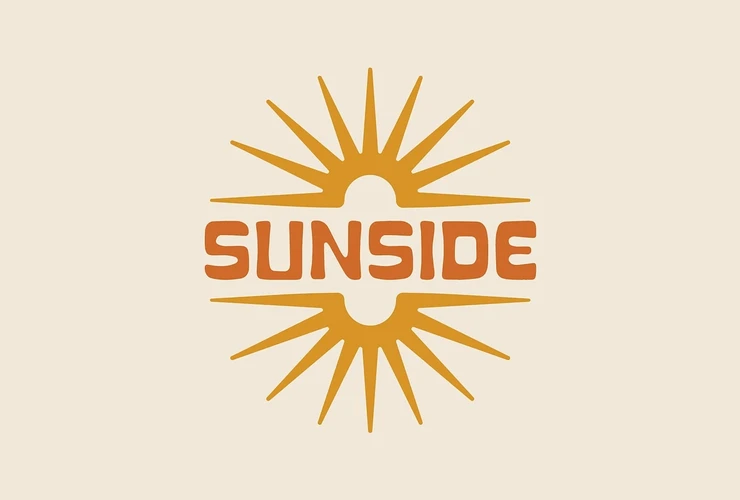
Introducing Sunside Typeface: A Coastal-Inspired Font by Nienow Brand
Explore the essence of coastal charm with the Sunside Typeface, a unique sans serif font crafted by Nienow Brand. This font captures the spirit of the coast with its organic, hand-made letter forms, making it perfect for projects that seek a touch of natural beauty and simplicity.
Key Features of Sunside Typeface
The Sunside Typeface stands out with its distinctive features, offering a versatile and appealing option for various design projects:
Coastal Inspiration: The font is inspired by the serene and breezy vibes of coastal landscapes, reflecting a relaxed and organic aesthetic.
Hand-Made Letter Forms: Each letter is carefully crafted by hand, providing an authentic and natural look that sets it apart from standard typefaces.
Comprehensive Character Set: Sunside includes uppercase letters, numbers, and punctuation, ensuring it meets all your typographic needs.
Ideal Uses for Sunside Typeface
The Sunside Typeface is perfect for a variety of design projects, particularly those aiming to convey a sense of natural beauty and simplicity:
Branding: Ideal for creating logos and brand identities that evoke a coastal or natural feel.
Print Materials: Perfect for designing posters, flyers, and brochures with a relaxed and organic aesthetic.
Digital Media: Enhance your website, social media posts, and digital content with a font that stands out for its unique hand-made charm.
Why Choose Sunside Typeface?
Sunside Typeface offers a blend of natural elegance and simplicity, making it an excellent choice for designers seeking to create impactful and authentic designs. Its coastal inspiration and hand-made letter forms provide a distinctive look that adds character and charm to any project.